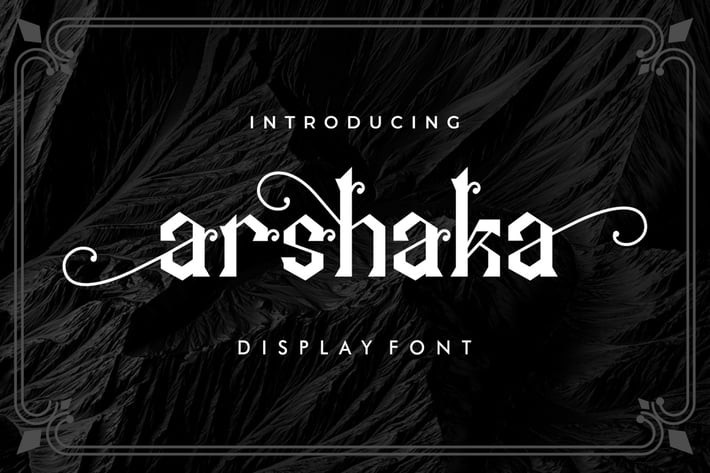
Arshaka - Great Display Font
ARSHAKA
ARSHAKA is great for any kind of display purpose from logos, Tshirt, apparel, quote, handwritten quotes, product packaging, tittle header, poster, merchandise, social media, labels, branding & greeting cards.